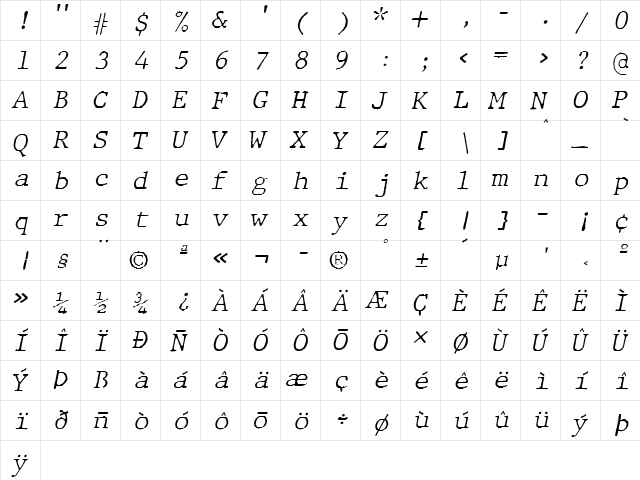
JMH Typewriter mono Fine Italic
Design Context for JMH Typewriter mono Fine Typeface
JMH Typewriter mono Fine brings the precise, column-aligned rhythm of monospaced typography to designs that value technical clarity and systematic order. The slanted form adds forward momentum and visual energy.
A natural fit for code editors, technical documentation, developer-focused branding, and terminal-inspired UI.